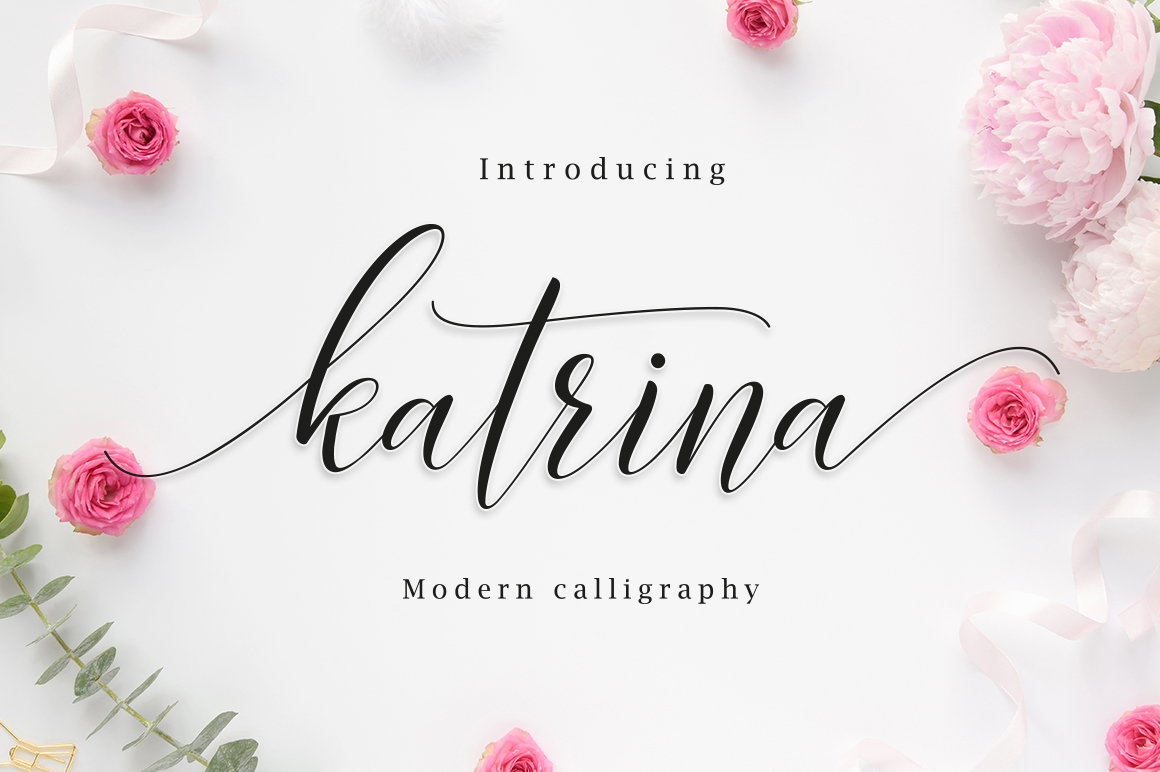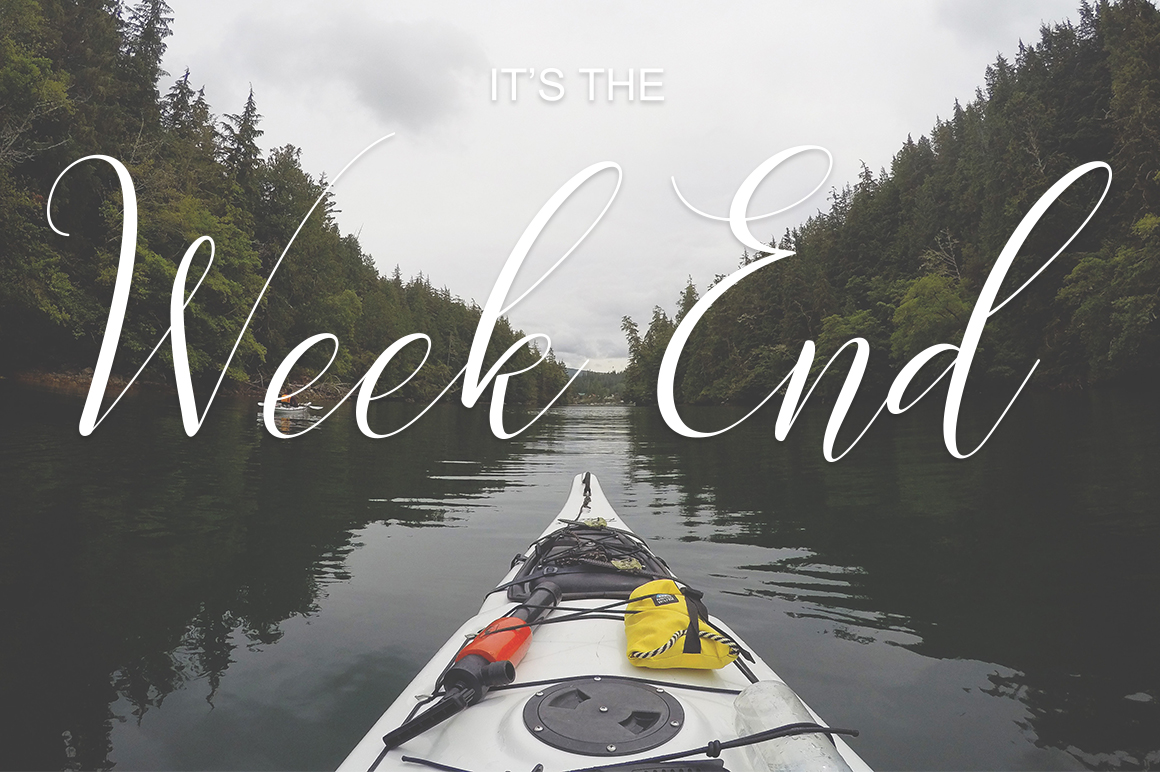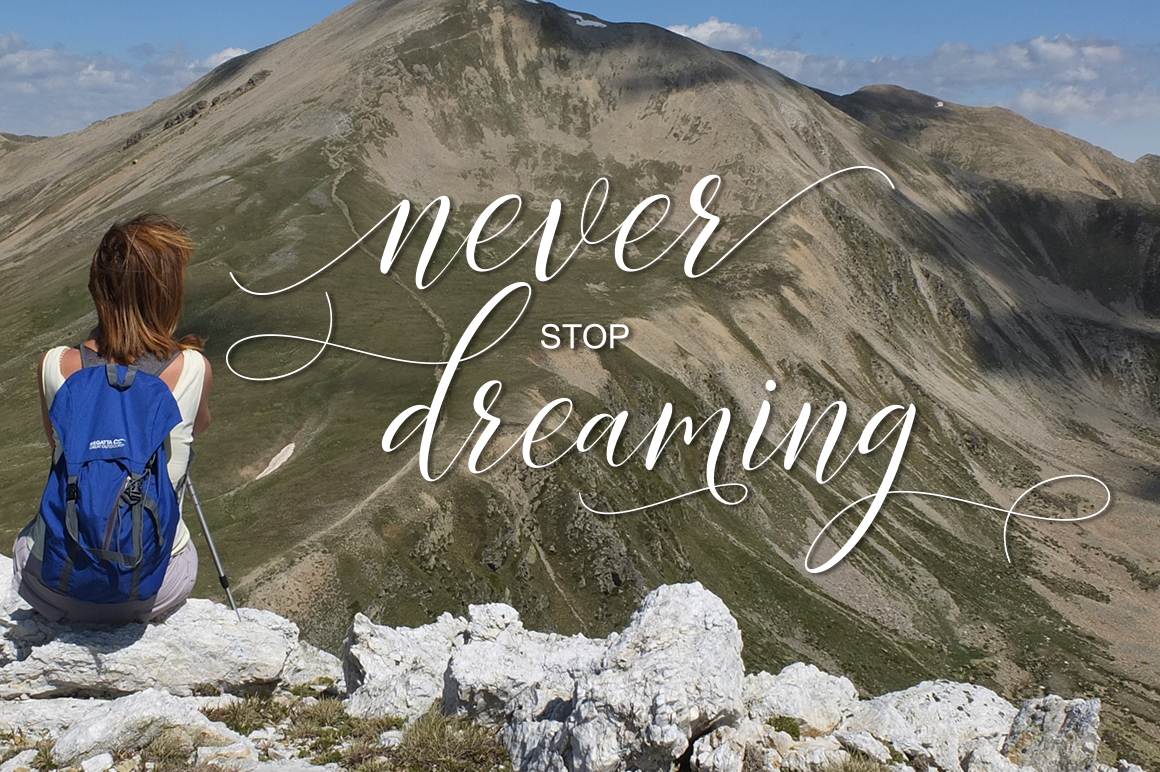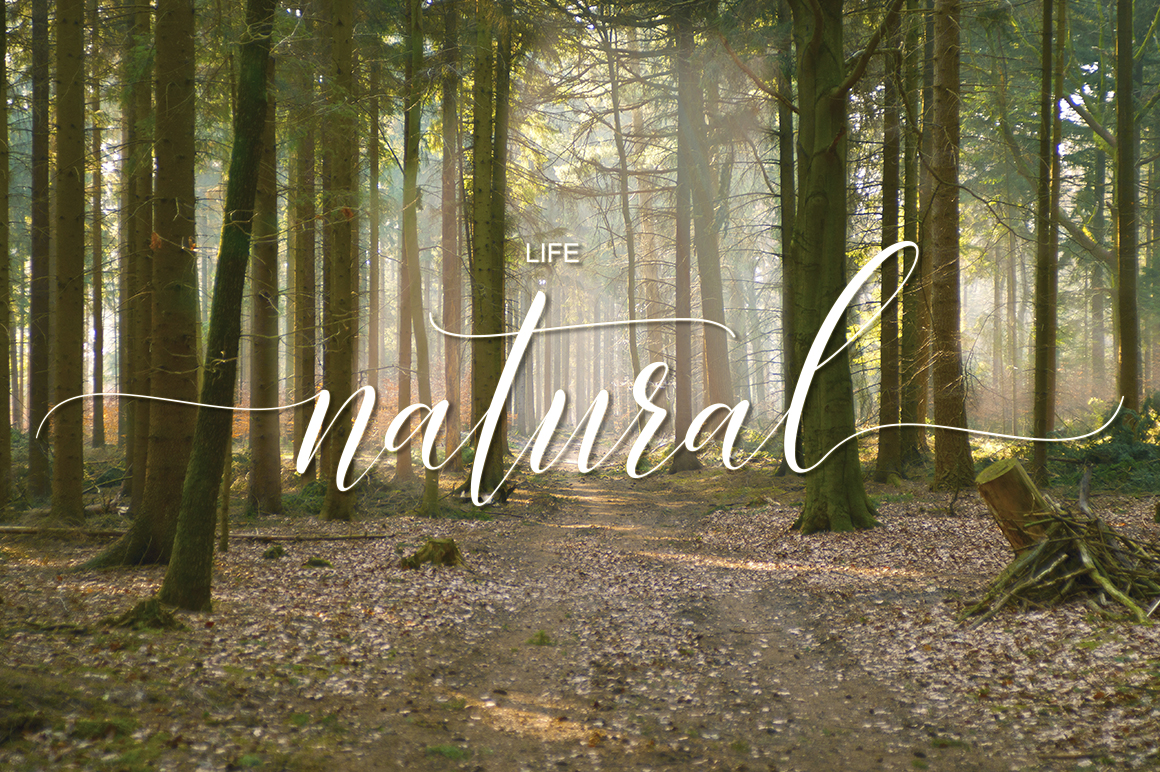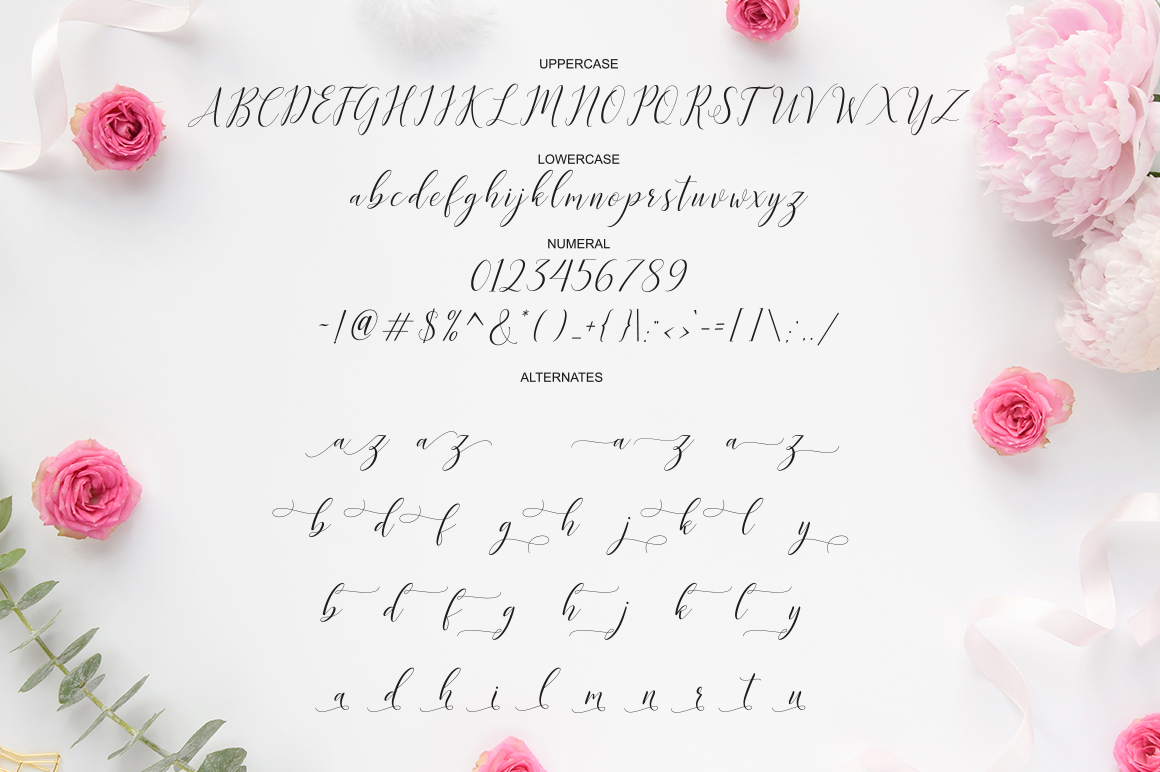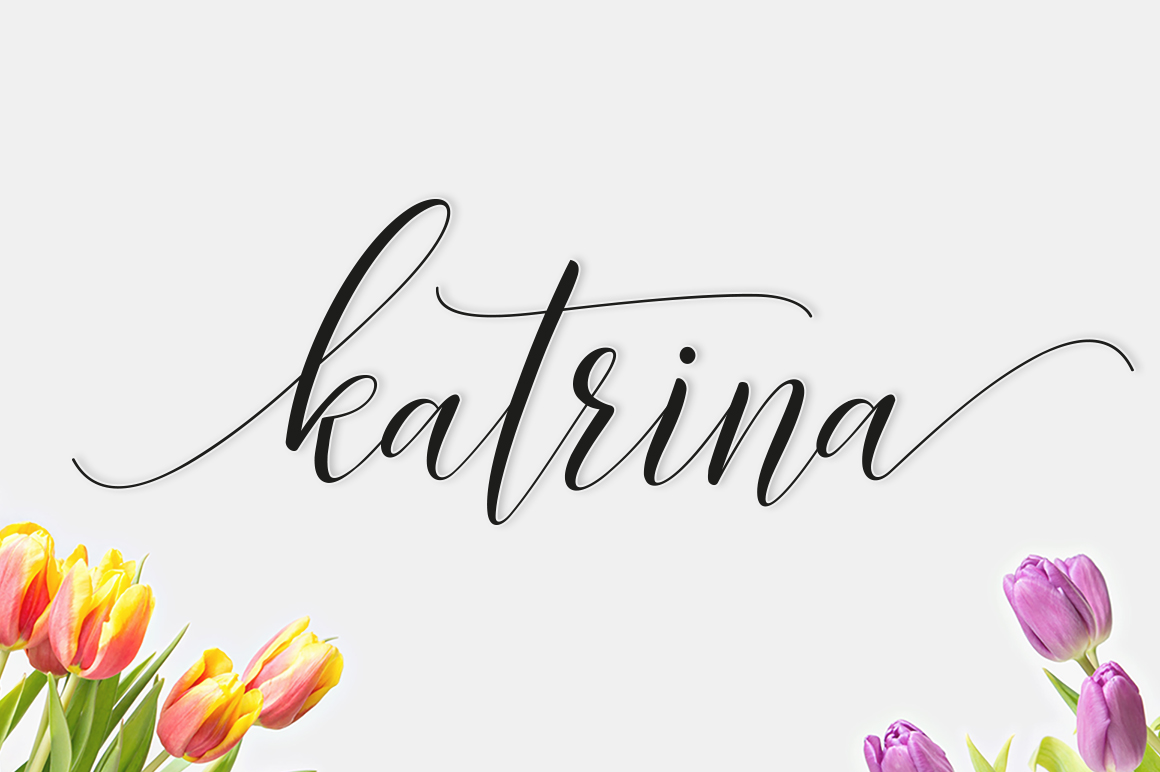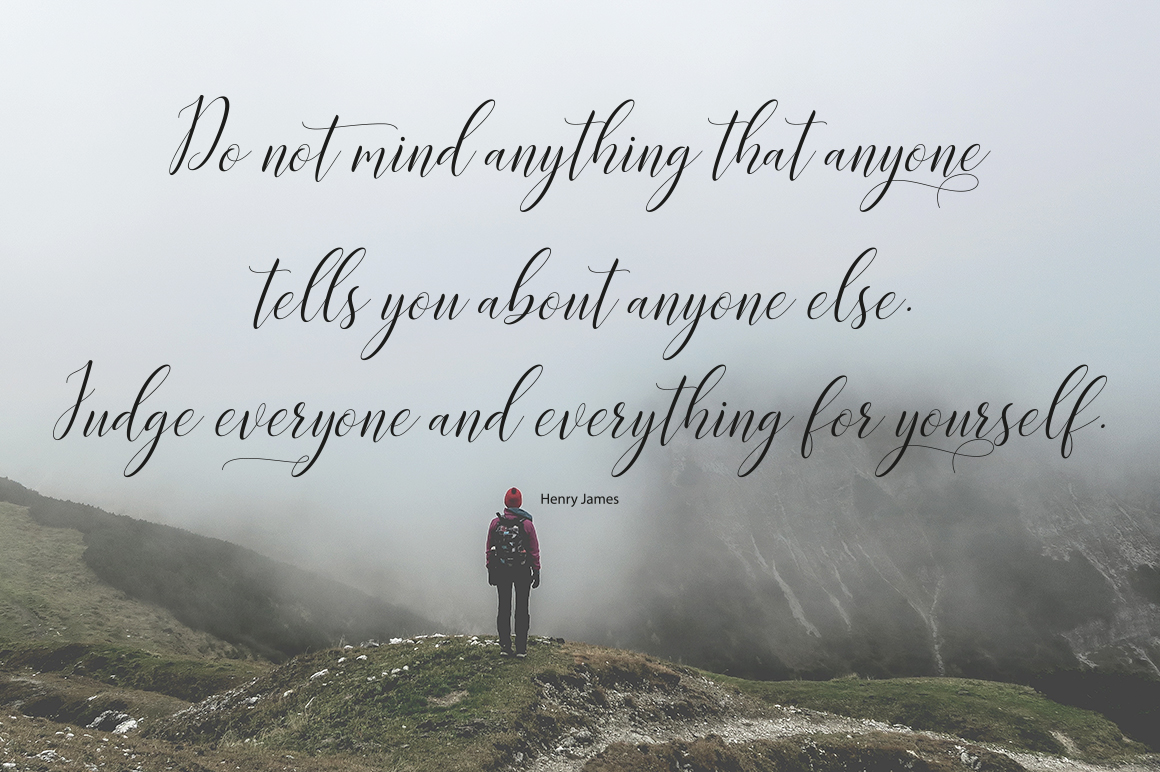
HomeScript FontsKatrina Font Script Fonts Katrina Font FacebookXPinterestWhatsApp Katrina Font Poster 2 Katrina Font Poster 3 Katrina Font Poster 4 Katrina Font Poster 5 Katrina Font Poster 6 Katrina Font Poster 7 About Katrina Font Katrina Script is a thin handwritten script. Packed with 330 glyphs, this font is a great asset to your toolkit. DOWNLOAD ON CREATIVE FABRICAThis font is sold and delivered by Creative Fabrica. Font Canyon may earn a commission if you buy through this link. People also explored Kallina Dakota Font School Days Font Crehme Honstlan Font Minimalist Note Font Stephany Font Stella Font Beautiful Sunday Font Me and Coffee Font Alexandria Monogram Font 373 0 TagsKatrina Font Previous articleKimberly FontNext articleRustine Font LEAVE A REPLY Cancel reply Comment: Please enter your comment! Name:* Please enter your name here Email:* You have entered an incorrect email address! Please enter your email address here Website: Save my name, email, and website in this browser for the next time I comment. Personal Use Free Victorian Ornaments Personal Use Free Read more about this font BD Pipe Personal Use Free Read more about this font Lost Treasure Personal Use Free Read more about this font Manhattan Personal Use Free Read more about this font BLOG Elegant Wedding Invitation Fonts – Handwritten & Script Fonts Elegant Wedding Invitation Fonts Your wedding day is one of the most important moments of your life, and every detail matters—including your invitation design. Our... How to Install and Use Fonts on Windows, macOS, and Web Projects Transform Your Website: Elevate Your Typography with 7 Best Web Font Generators 5 Fonts That Will Dominate Design Trends in 2026